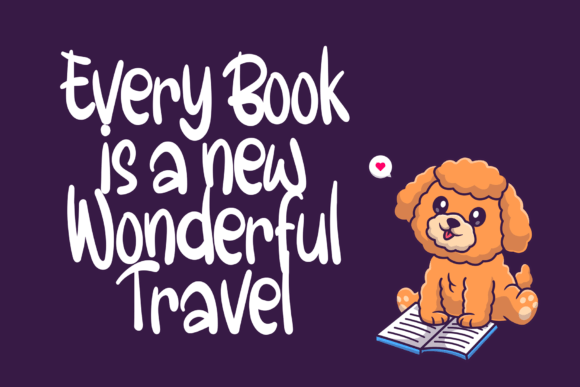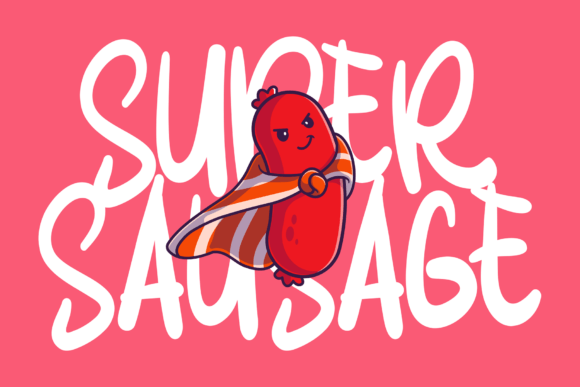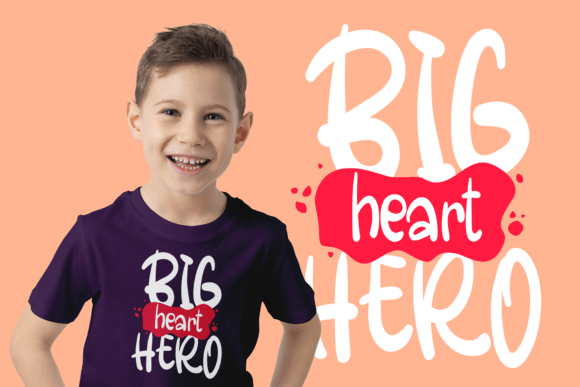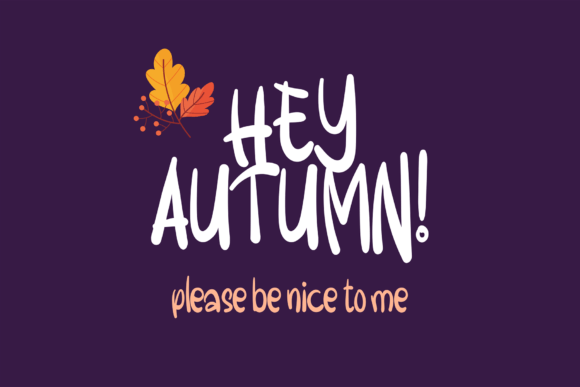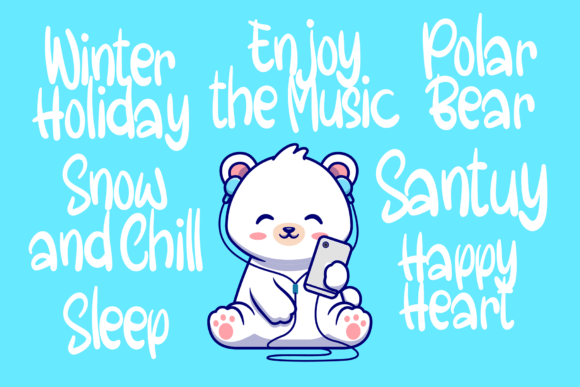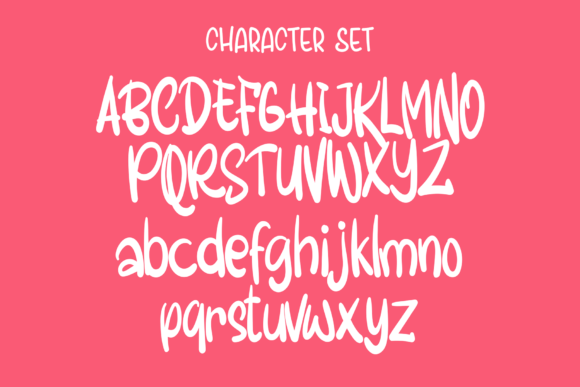
Introduction to Rush Boy Font
Have you ever stared at a blank page, trying to bring your creative project to life, but struggling to find the perfect font to set the tone? I know I have. That’s why I’m thrilled to introduce you to the Rush Boy Font, a delightful display font that’s sure to make your design shine.
With its playful, handwritten look, the Rush Boy Font adds a touch of whimsy and personality to any project. Whether you’re working on a branding campaign, a social media graphic, or a children’s book, this font is the perfect addition to your design resource toolkit. And the best part? It’s completely free to download, so you can experiment with it to your heart’s content.
Key Features of Rush Boy Font
- Supports multiple languages, making it a versatile design option
- Rush Boy Font features a unique, bold, and modern design aesthetic
Honest Review: Rush Boy Font
I recently came across the Rush Boy Font, and I must say it’s a great addition to any designer’s toolkit. This font is perfect for any creative project that requires a fun, energetic vibe. I love how it can instantly elevate the look and feel of a design.
- ✨ High quality design with a modern feel.
- ✨ Perfect for creating a bold, attention-grabbing headline.
However, I do have to mention a few limitations:
- ⚠️ Limited font styles – it’s primarily a sans-serif font.
- ⚠️ Not ideal for formal or professional designs.
Overall, I’m impressed with the Rush Boy Font. It’s a free download, making it a great resource for designers on a budget. I can see it being used in a variety of creative projects, from social media graphics to advertising campaigns. If you’re looking for a fun, high-quality font to add to your design arsenal, the Rush Boy Font is definitely worth checking out.
Tips for Getting the Most Out of Rush Boy Font
For optimal results, use the Rush Boy Font in combination with other design elements that complement its unique style. Experiment with different font sizes, colors, and arrangements to find the perfect look for your creative project.
Alternatives to Rush Boy Font
1. Pixelated Pixel Font
The Pixelated Pixel Font is a high-quality font suitable for various design projects, including video games, logos, and creative graphics. It features a transparent background and is available for free download. Use it for projects requiring a pixel-perfect aesthetic.
Compared to Rush Boy Font, Pixelated Pixel Font has a more pixelated and blocky design, making it ideal for pixel art and retro-style graphics. However, it lacks the dynamic feel of Rush Boy Font.
2. Bungee Font
The Bungee Font is a bold, high-quality font perfect for use in logos, posters, and other creative projects. It features a unique, dynamic design and is available for free download with a transparent background. Use it for projects requiring a bold and eye-catching aesthetic.
Compared to Rush Boy Font, Bungee Font has a more dramatic and dynamic feel, making it ideal for projects that require a sense of movement and energy. However, it may not be as versatile as Rush Boy Font for everyday use.
3. Pixel Bungee Font
The Pixel Bungee Font is a hybrid font combining the pixelated design of Pixelated Pixel Font with the dynamic feel of Bungee Font. It’s perfect for use in video games, logos, and other creative projects that require a unique aesthetic. Use it for projects requiring a mix of pixel art and dynamic design.
Compared to Rush Boy Font, Pixel Bungee Font offers a unique blend of pixel art and dynamic design, making it ideal for projects that require a sense of movement and energy while still maintaining a pixel-perfect aesthetic.
4. Pixel Rush Font
The Pixel Rush Font is a